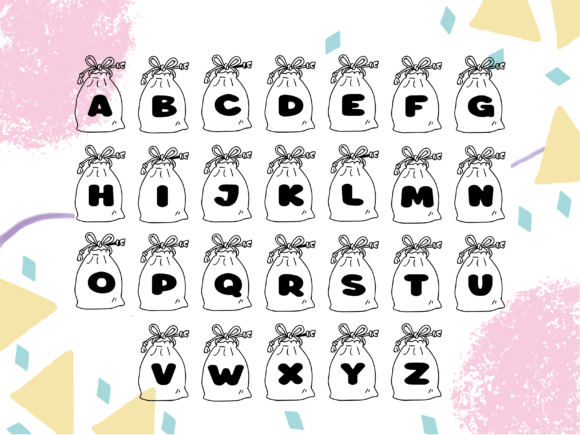
Introducing Baggy Doodles Font: The Ultimate Playful Typeface for Creative Expression
In the world of typography, there’s a new kid on the block that’s making waves with its unique and playful design. Say hello to Baggy Doodles Font, a modern dingbats typeface that’s taking the design community by storm. This innovative font features adorable baggies in place of standard letters, offering endless opportunities for creative expression.
What is Baggy Doodles Font?
Baggy Doodles Font is a one-of-a-kind typeface that replaces traditional letters with whimsical baggies. Each character showcases a different style and design, making it perfect for adding a touch of fun to various design projects. Whether you’re a designer, crafter, or social media enthusiast, this font is a must-have in your collection.
Key Features of Baggy Doodles Font
- Unique Design: Each character in Baggy Doodles Font features a distinct baggy design, ensuring that your text will never look boring or repetitive.
- Playful Style: The font’s playful style makes it perfect for creative projects that require a touch of whimsy and fun.
- Endless Opportunities: With a wide range of designs to choose from, you can experiment with different combinations to create unique and eye-catching text.
- Modern Look: Baggy Doodles Font boasts a modern aesthetic that’s sure to elevate your designs and make them stand out.
Baggy Doodles Font is an excellent addition to any designer’s or crafter’s toolkit. Its versatility makes it suitable for a wide range of projects, including:
- Invitations: Add a playful touch to your invitations and make them truly unforgettable.
- Social Media Graphics: Elevate your social media presence with eye-catching graphics that showcase your creativity.
- Packaging: Make your products stand out with unique and colorful packaging that features Baggy Doodles Font.
Tips for Using Baggy Doodles Font
To get the most out of Baggy Doodles Font, here are some tips to keep in mind:
- Experiment with Colors: Try pairing different colors with Baggy Doodles Font to create visually striking text.
- Mix and Match: Combine different characters to create unique and interesting text.
- Use it Sparingly: Use Baggy Doodles Font to add a touch of whimsy to your designs, but avoid overusing it to maintain readability.